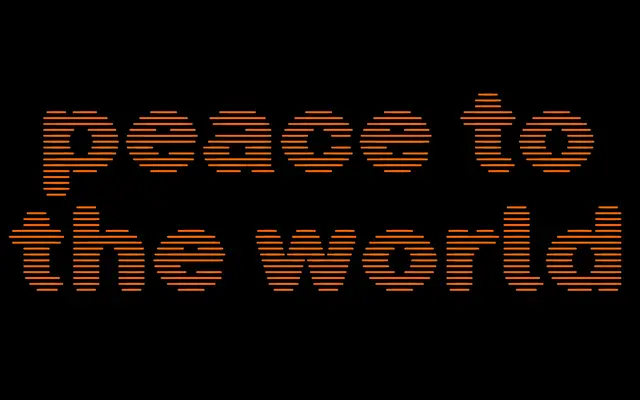
Neue Television
A variable display typeface built on a horizontal grid of thin lines, with six axes controlling stroke weight, width and position to produce an expansive range of raster-like visual effects.
Characters sit on a visible grid of thin horizontal lines, with strokes that can shift position, change width, collapse to a circle or blend entirely with the grid. Six variable axes govern stem width, stroke weight, stroke width, stroke position, retro stroke and a terminal transition that recalls the original Television typeface. A stripped variant, Neue Television S, removes the grid lines entirely to allow deliberate layering of points and lines.
Neue Television is built on a horizontal grid of thin lines with variable strokes overlaid, making it a raster or pixel-logic display typeface rather than a conventional sans-serif or any traditional category. Its defining structure is decorative and screen-referencing.